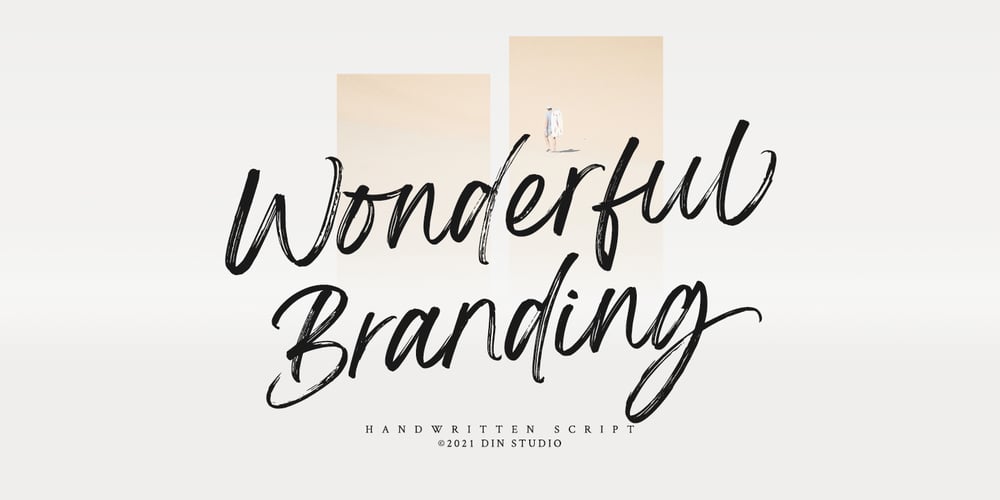
Wonderful Branding Font Family was designed by Donis Miftahudin and published by Din Studio. Wonderful Branding contains 1 styles and family package options. Is your branding missing something wonderful that makes people going crazy impressed? Have you thought about how you can add that touch of that something to your branding and projects? Want to transport your audience to a world of gorgeous, elegant, wonderful, versatile, yet modern? Then, we have the solution for you.Introducing Wonderful Branding-A Handwritten Brush Font Giving you a simple, yet wonderful solution to your branding. This font is more than just another handwritten brush font. It encapsulates the essence of modernity and elegance. With elegance and passion edged into every curve and twist of this brush font – you’ll be sure to boost your sales and make the best impressions. Use it for headings, logos, business cards, printed quotes, invitations of all sorts, cards, packaging, and your website or social media branding. Wonderful Branding includes Multilingual Options to make your branding globally acceptable. Features: Beautiful Ligatures Stylistic Sets Multilingual Support (84 languages) PUA Encoded Numerals and Punctuation Thank you for downloading premium fonts from Din Studio